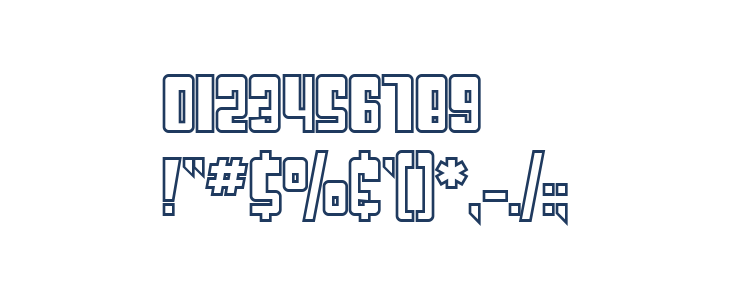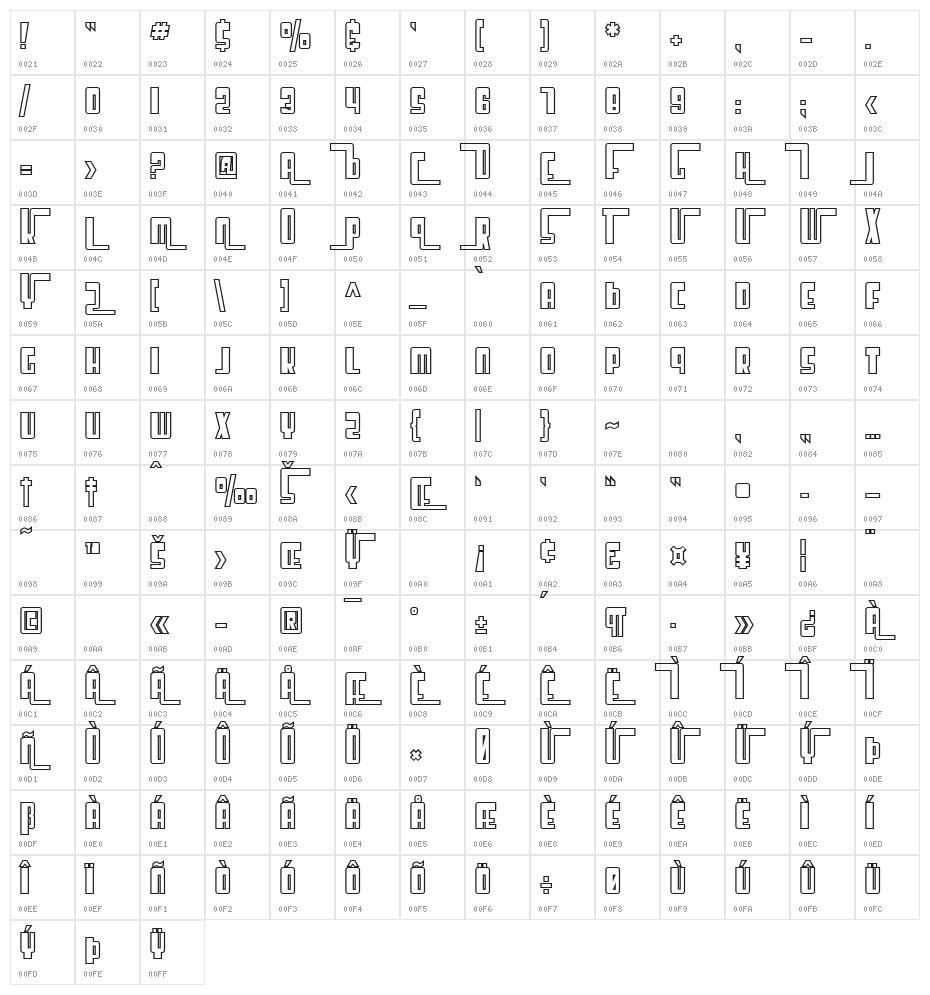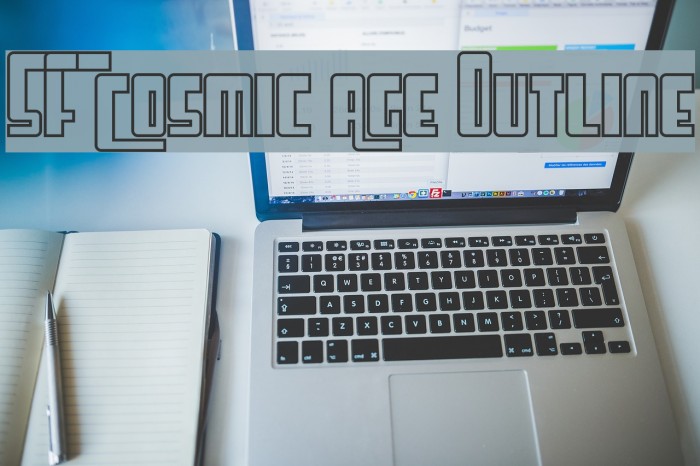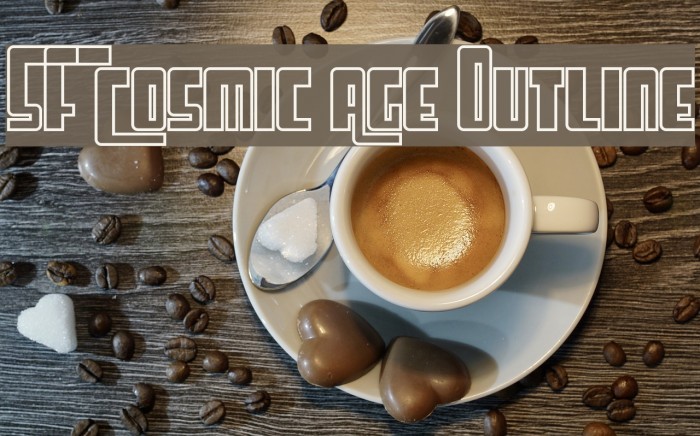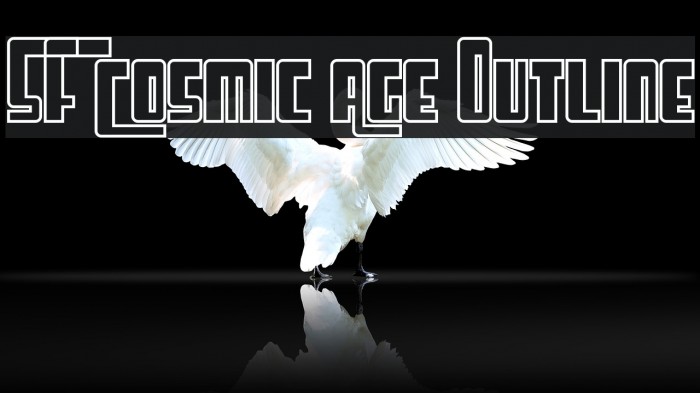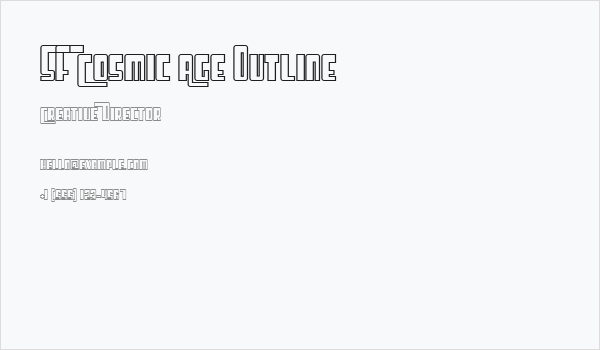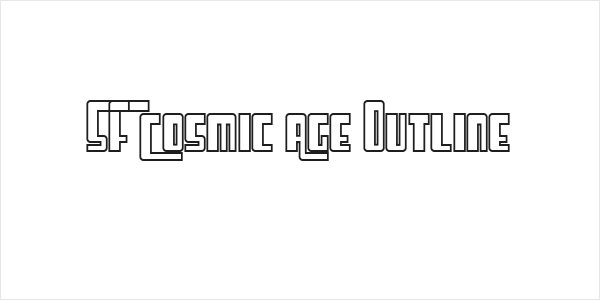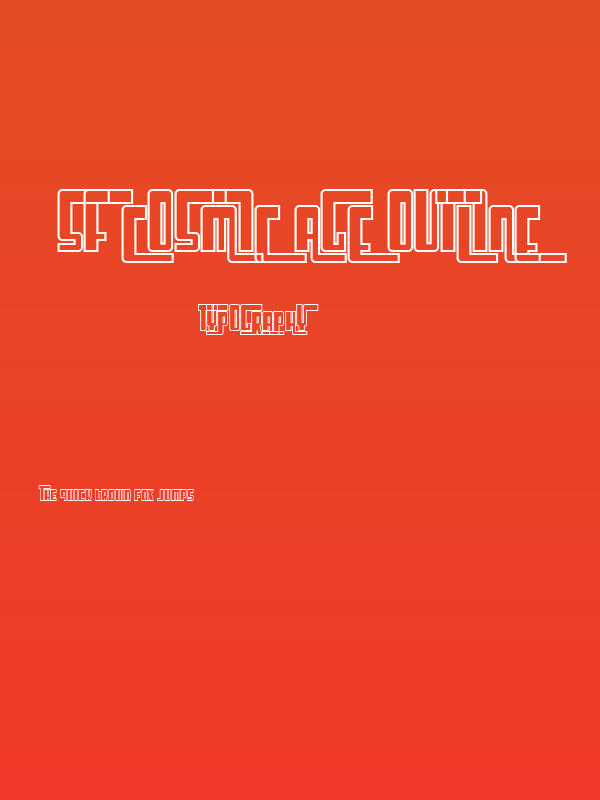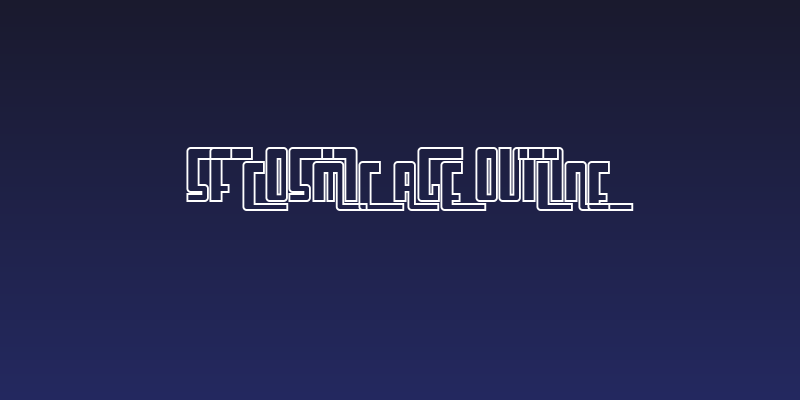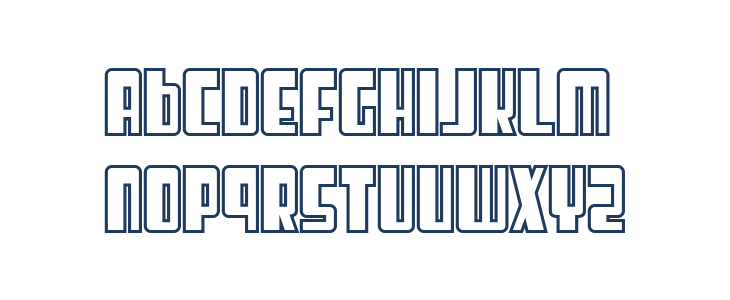
SF Cosmic Age Outline Font
SF Cosmic Age Outline Description
This font features a futuristic and geometric design with an outline style that gives it a bold and striking appearance. The characters are constructed with straight lines and sharp angles, creating a sense of modernity and innovation. The uppercase and lowercase letters maintain a consistent height, enhancing readability while preserving the unique aesthetic. The numerals and special characters follow the same design principles, ensuring uniformity across all glyphs. This font is ideal for projects that require a modern and technological feel, such as sci-fi themed designs, tech branding, or digital interfaces.
| Proposed Projects | Ideal for sci-fi themed designs, tech branding, digital interfaces, and futuristic posters. |